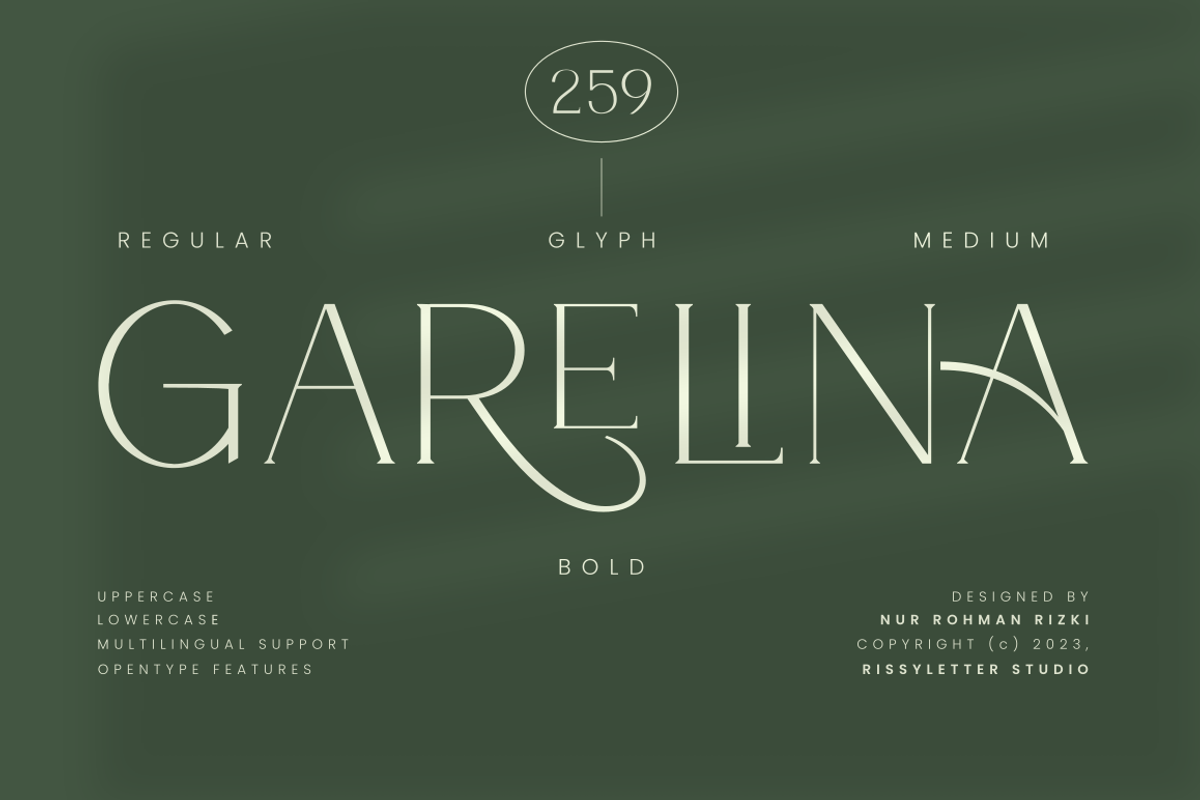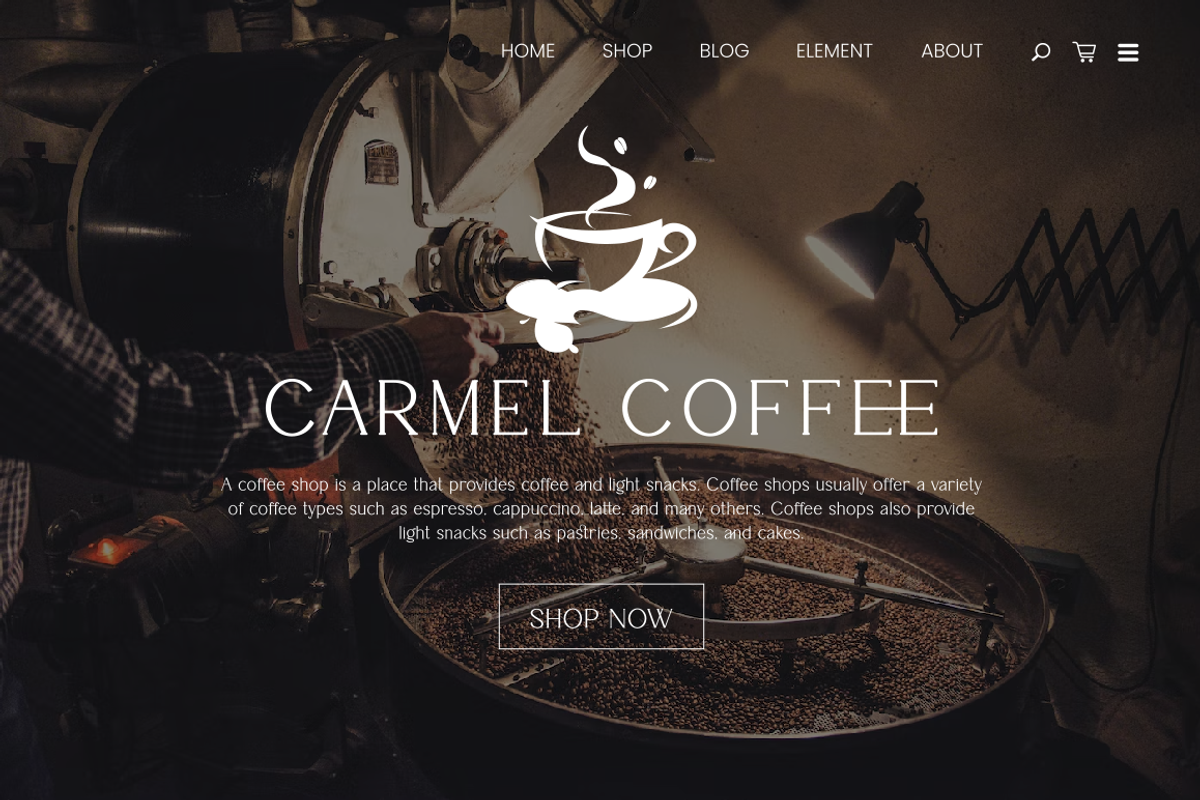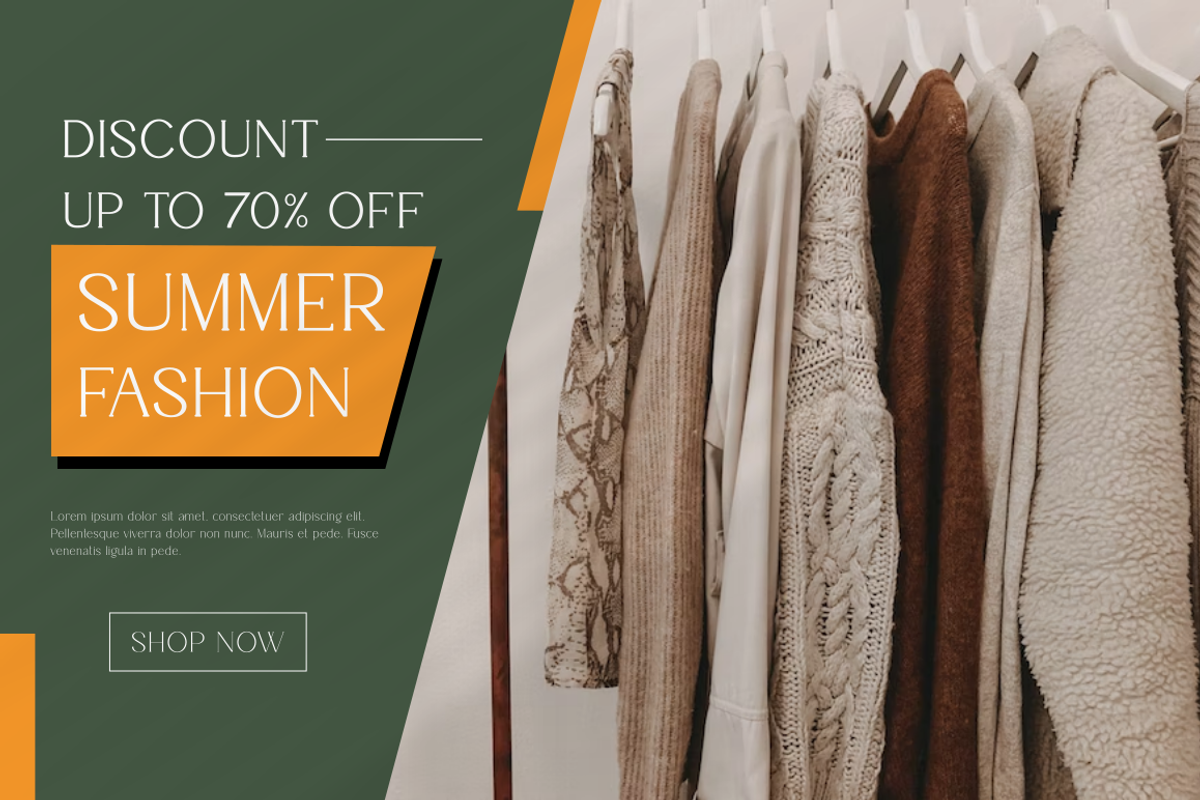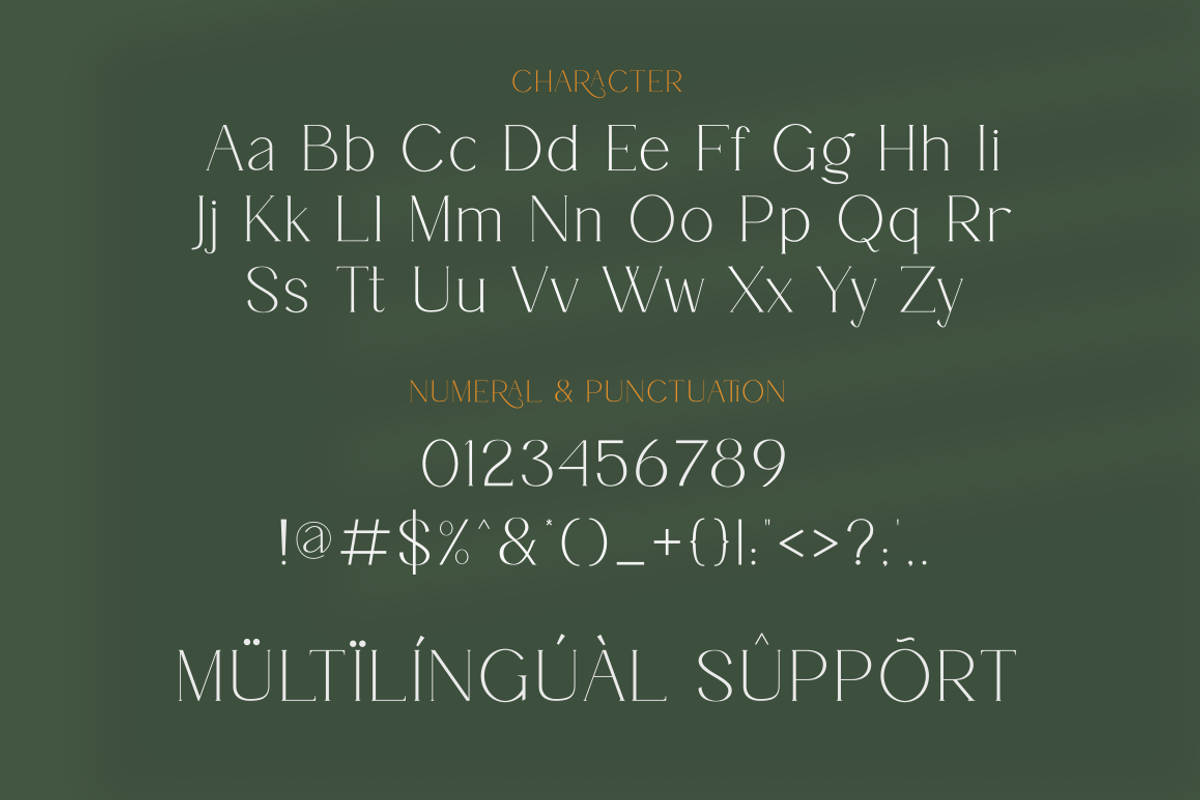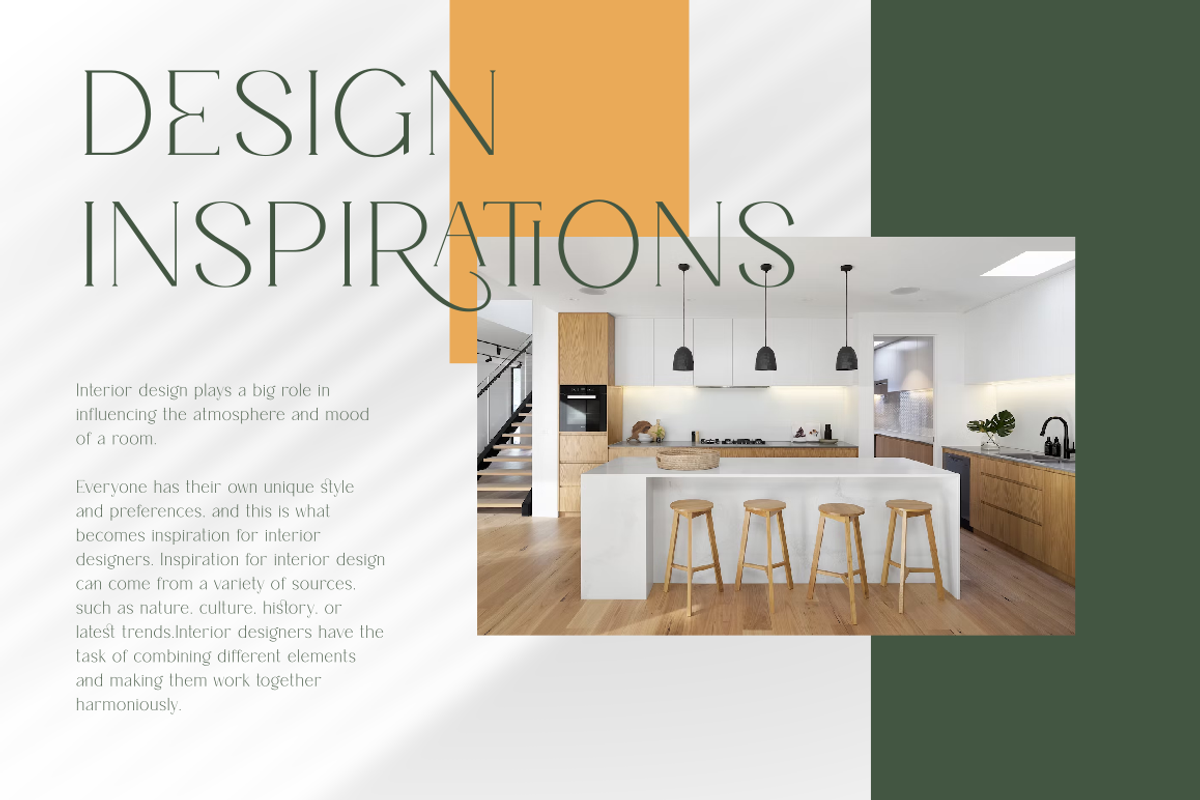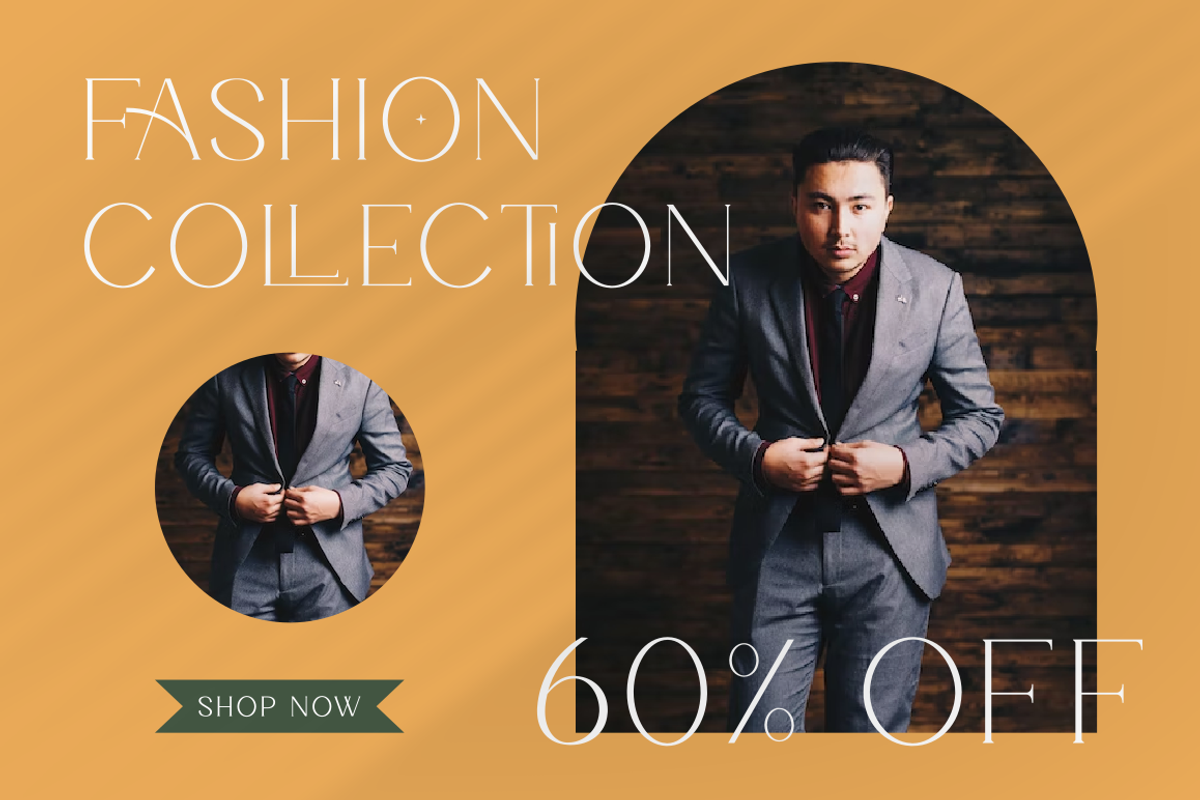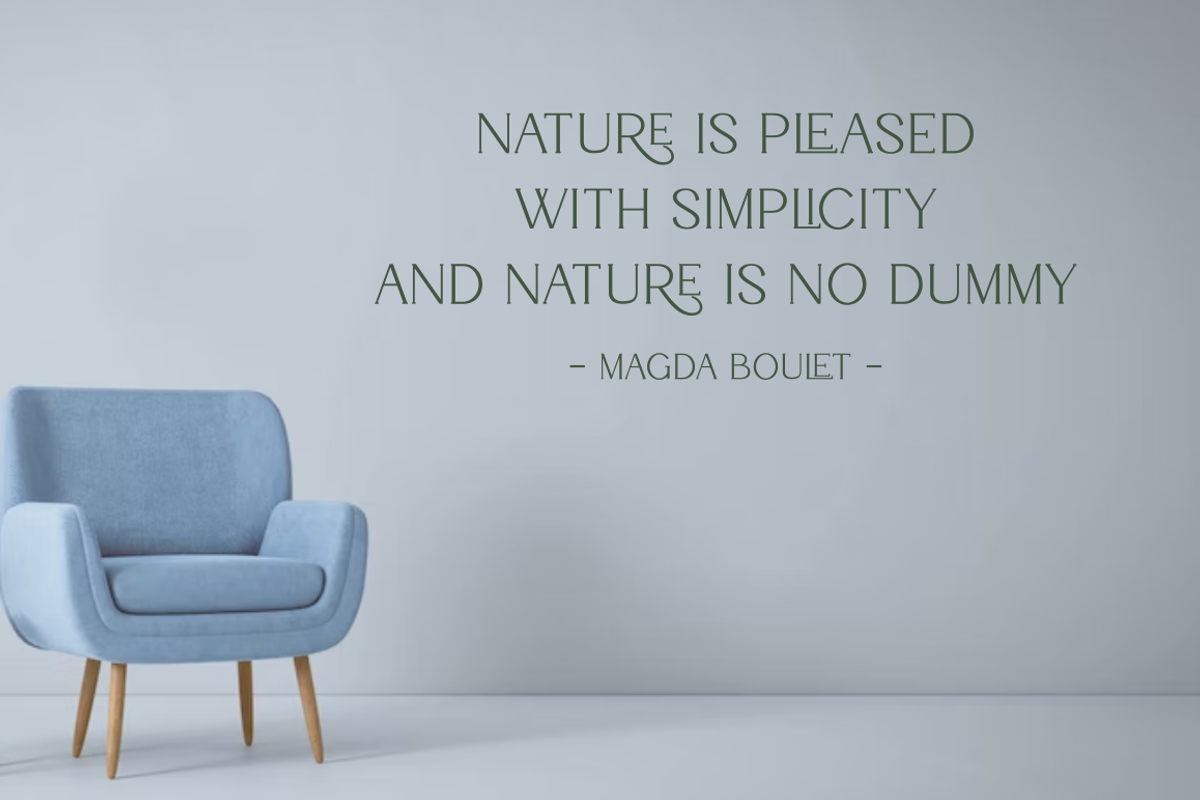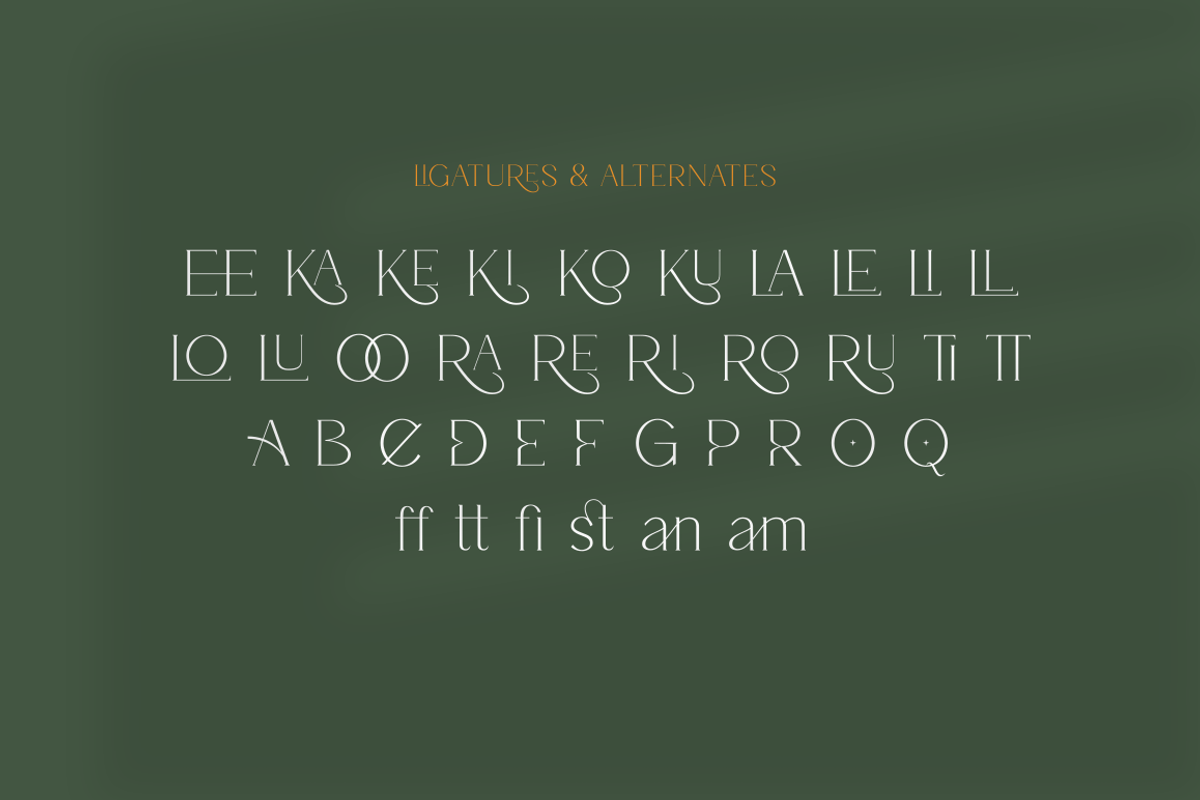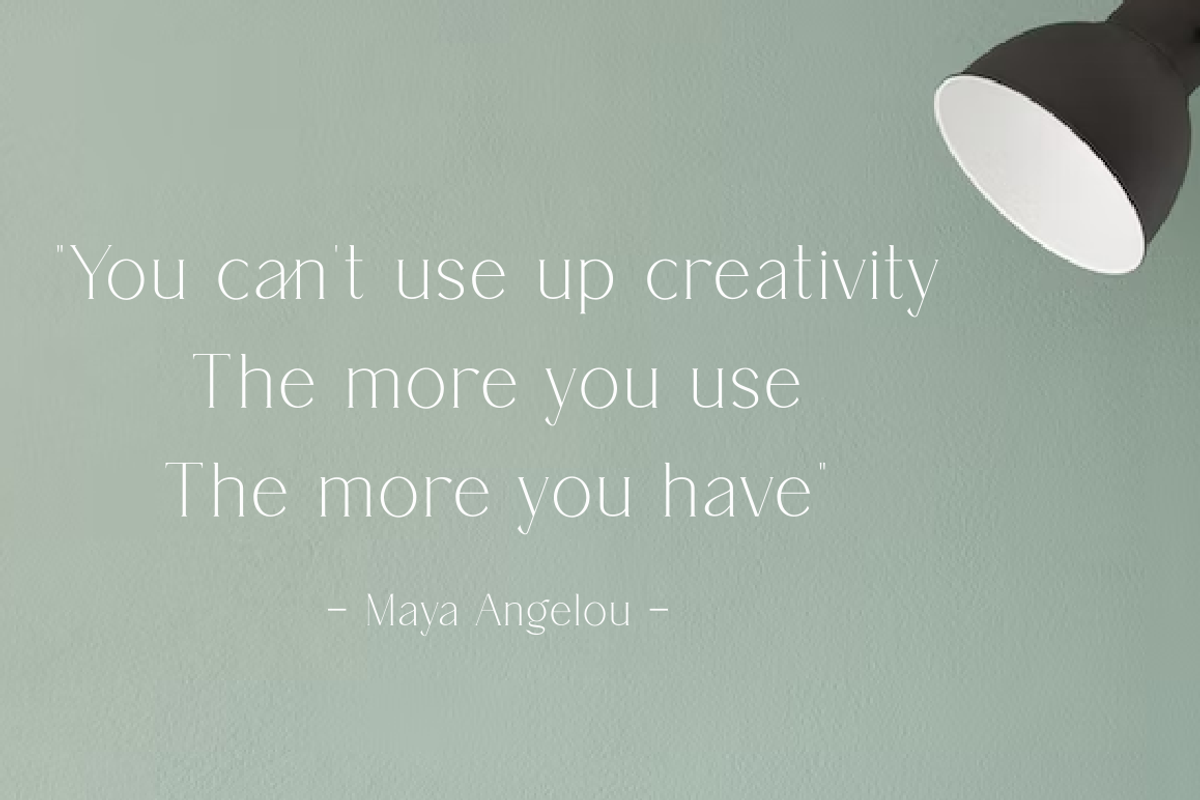
Garelina | Modern Serif Font
Looking for a minimalist and luxurious serif font for logos, web design, clothing promotions, brochures, and more? Garelina is the answer. This font has thin and smooth lines that make it look elegant and luxurious.
Garelina is perfect for branding and promotion purposes. With its delicate typography, this font can add aesthetic value to your design. Garelina also has several letter variants making it easy to use for various design types.
With Garelina, you can create minimalist designs that still look luxurious and elegant. This font is perfect for companies that want to display a professional and stylish image.
Do not hesitate to try Garelina on your design now. You will be surprised how easy it is to make elegant and luxurious designs with this serif font. Garelina, the elegant and luxurious serif font for your branding needs.
- More than 250 of glyphs (include Uppercase, Lowercase, Numerals & Punctuations,Ligatures and Stylistic)